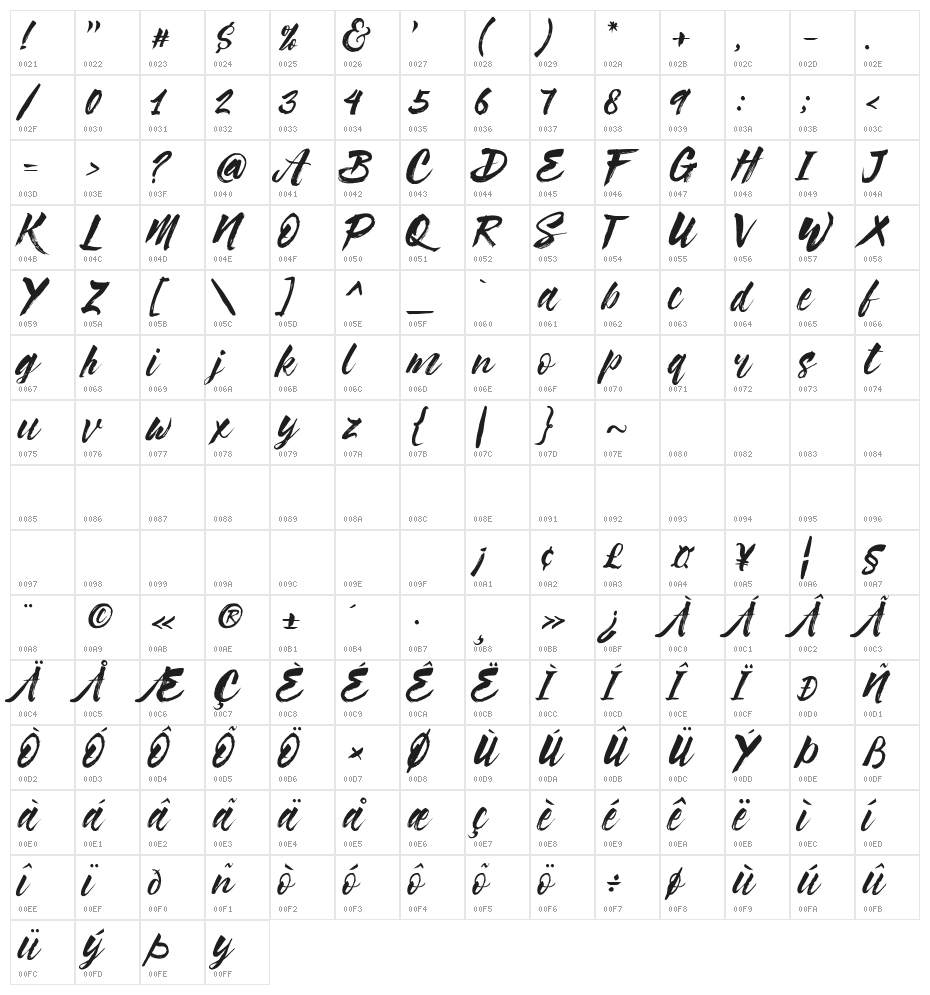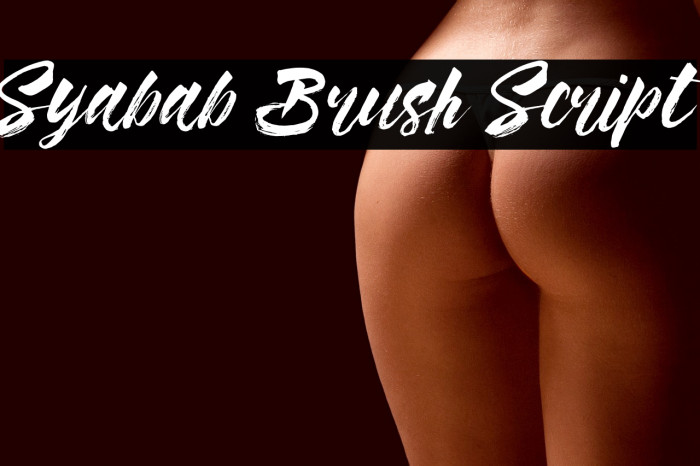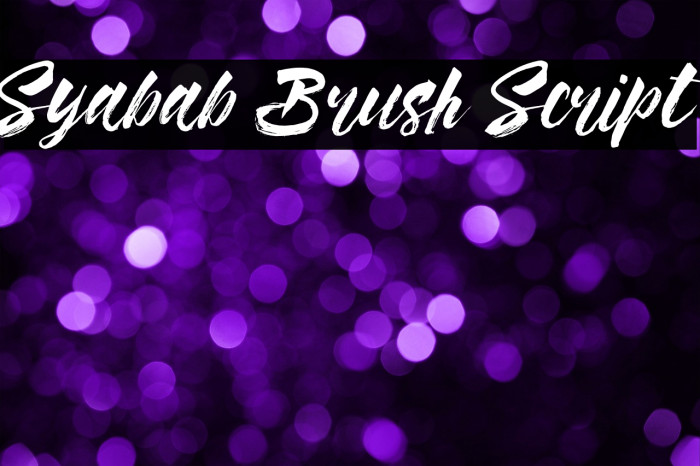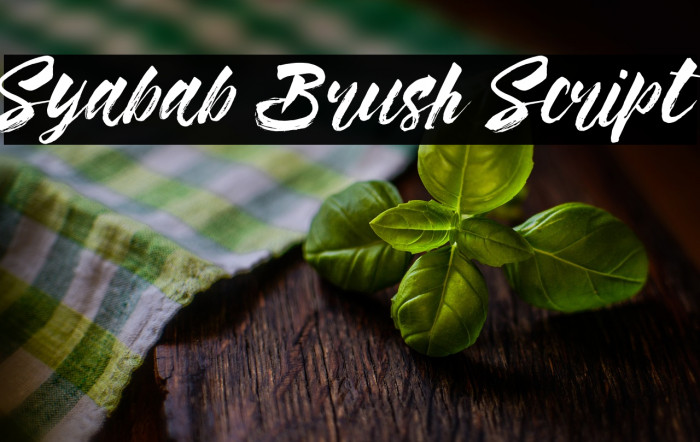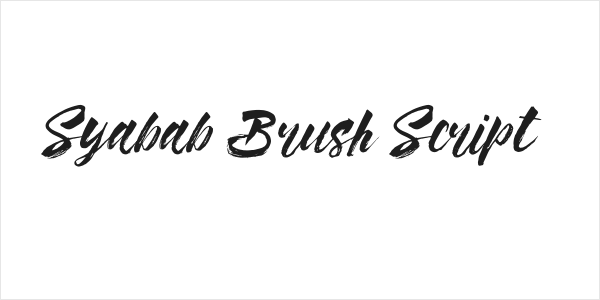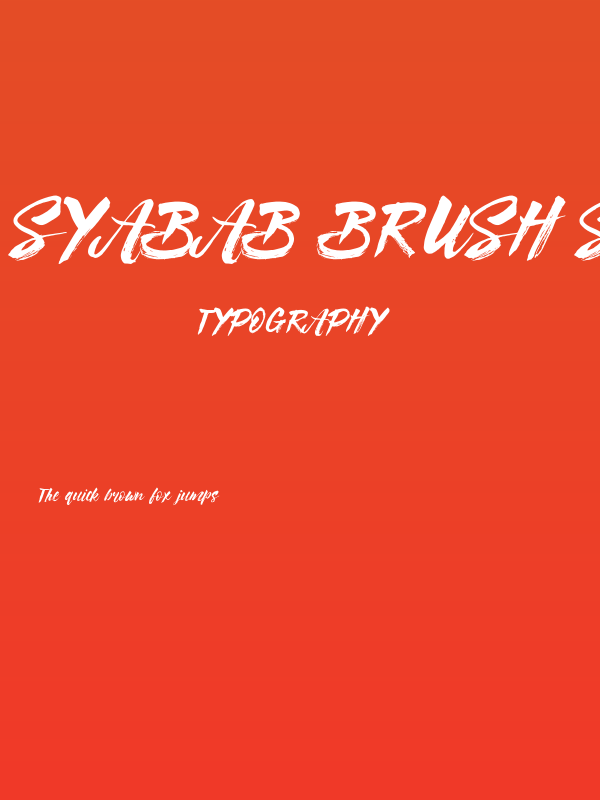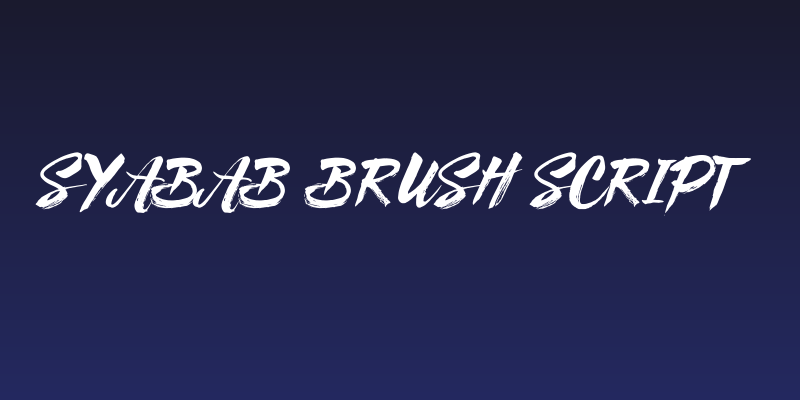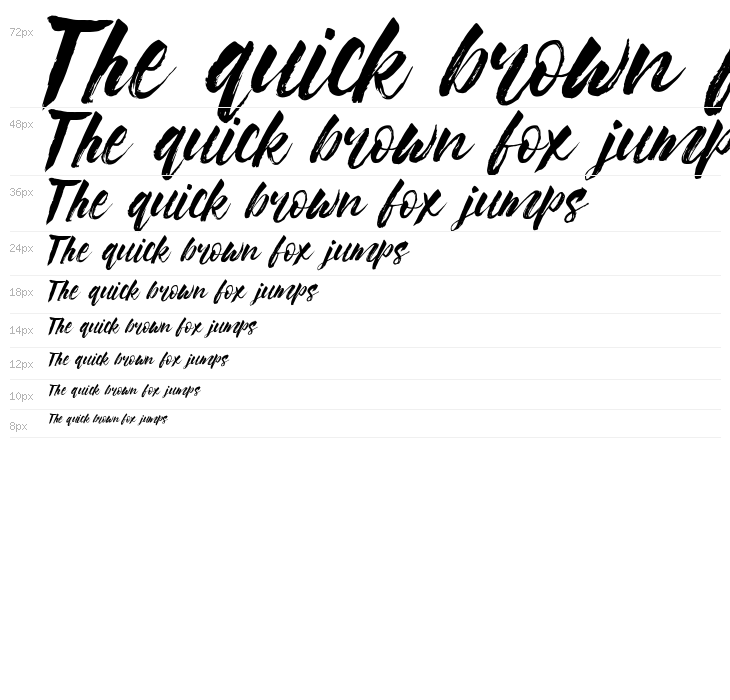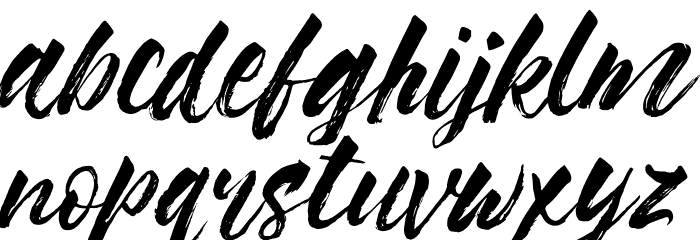
Syabab Brush Script Font
Syabab Brush Script Description
This font exudes a dynamic and expressive style, characterized by its bold, brush-like strokes that convey a sense of movement and energy. The letters are crafted with a natural, hand-drawn appearance, giving it an authentic and artistic feel. The uppercase and lowercase letters maintain a consistent flow, with varying stroke widths that add depth and texture. The numerals and special characters are equally expressive, complementing the overall aesthetic. This font is ideal for projects that require a personal touch or a creative flair.
| Proposed Projects | Ideal for branding, posters, invitations, and artistic projects that require a personal and creative touch. |